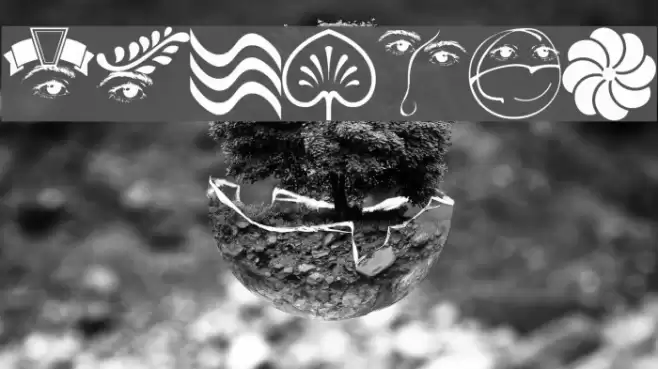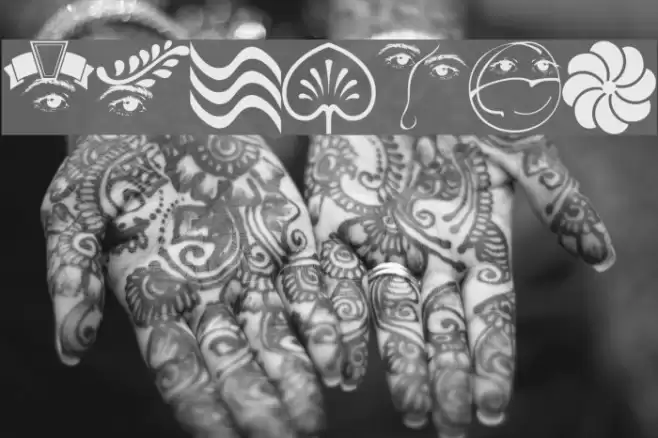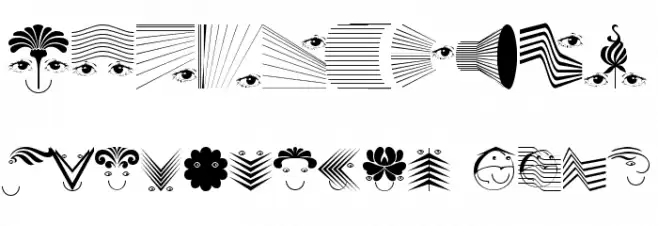
CloseUp Font
CloseUp Description
A highly decorative and illustrative dingbat font composed of abstract shapes, stylized eyes, faces, and geometric patterns. Each character is unique, blending organic curves with sharp lines and intricate details, resulting in a playful and artistic visual language.
Whimsical, abstract dingbat font with faces, eyes, and geometric motifs from Uncategorized fonts.
- Proposed Projects: Posters, album covers, branding for creative industries, editorial illustrations, decorative borders, art projects.
- Overall Style: Decorative, Abstract, Playful
- Use Case: Logos, Headlines, Decorative elements, Illustrative accents